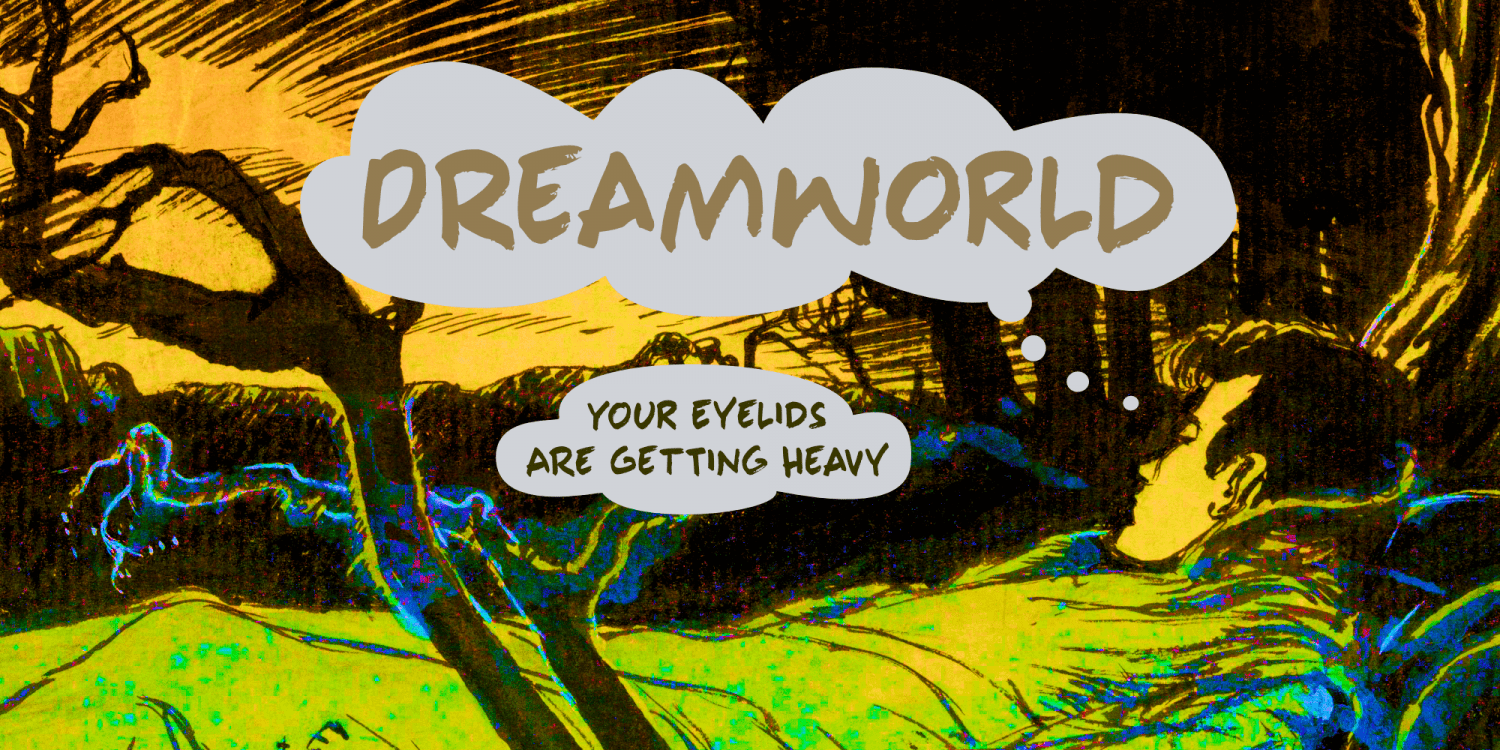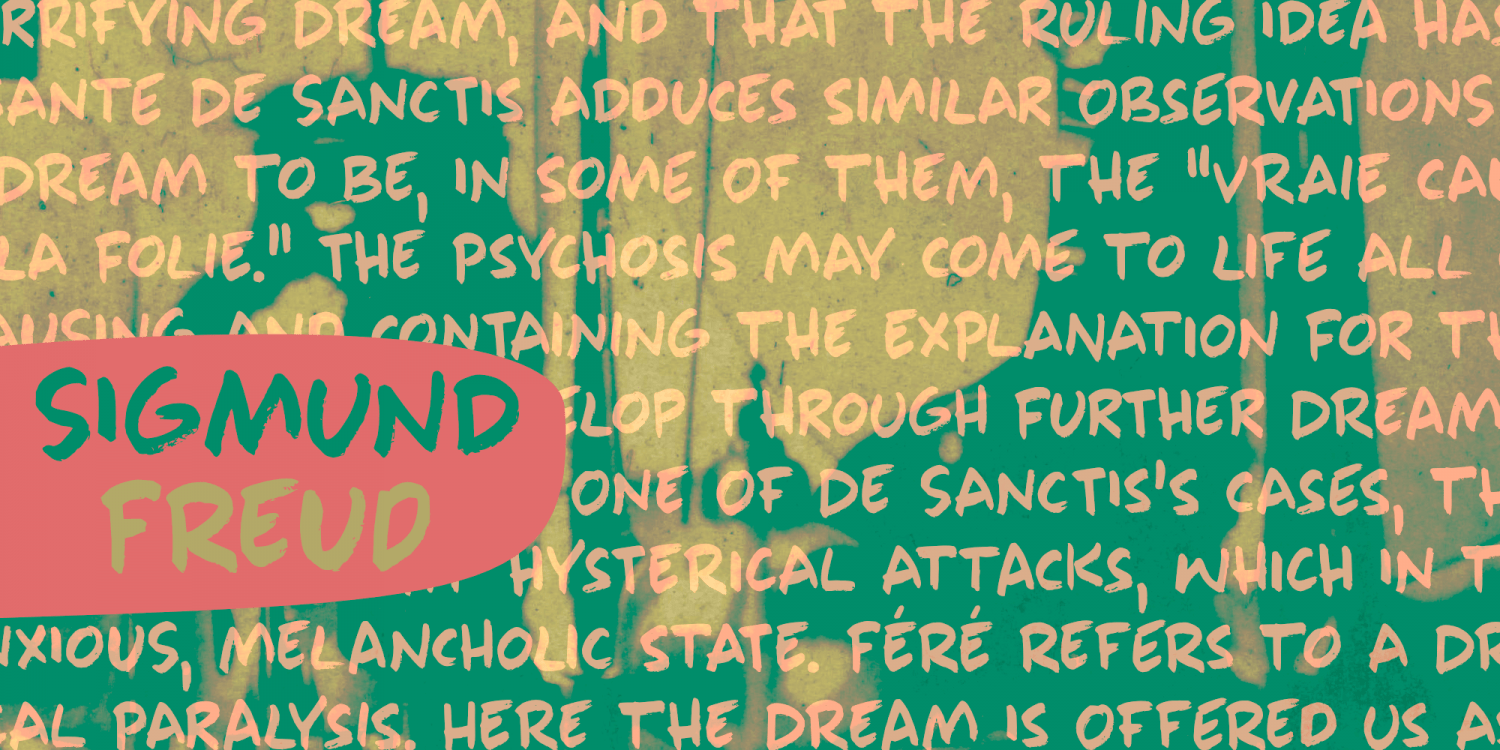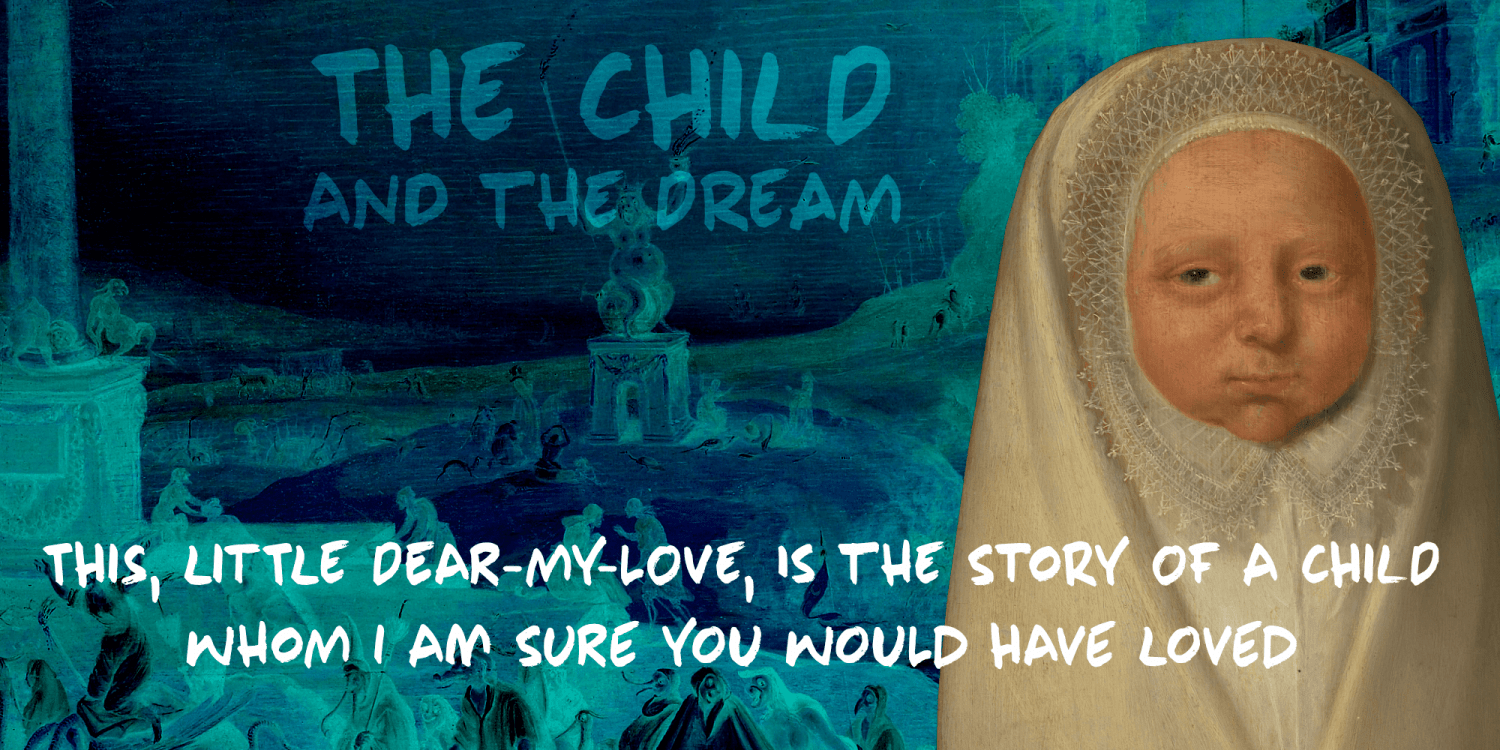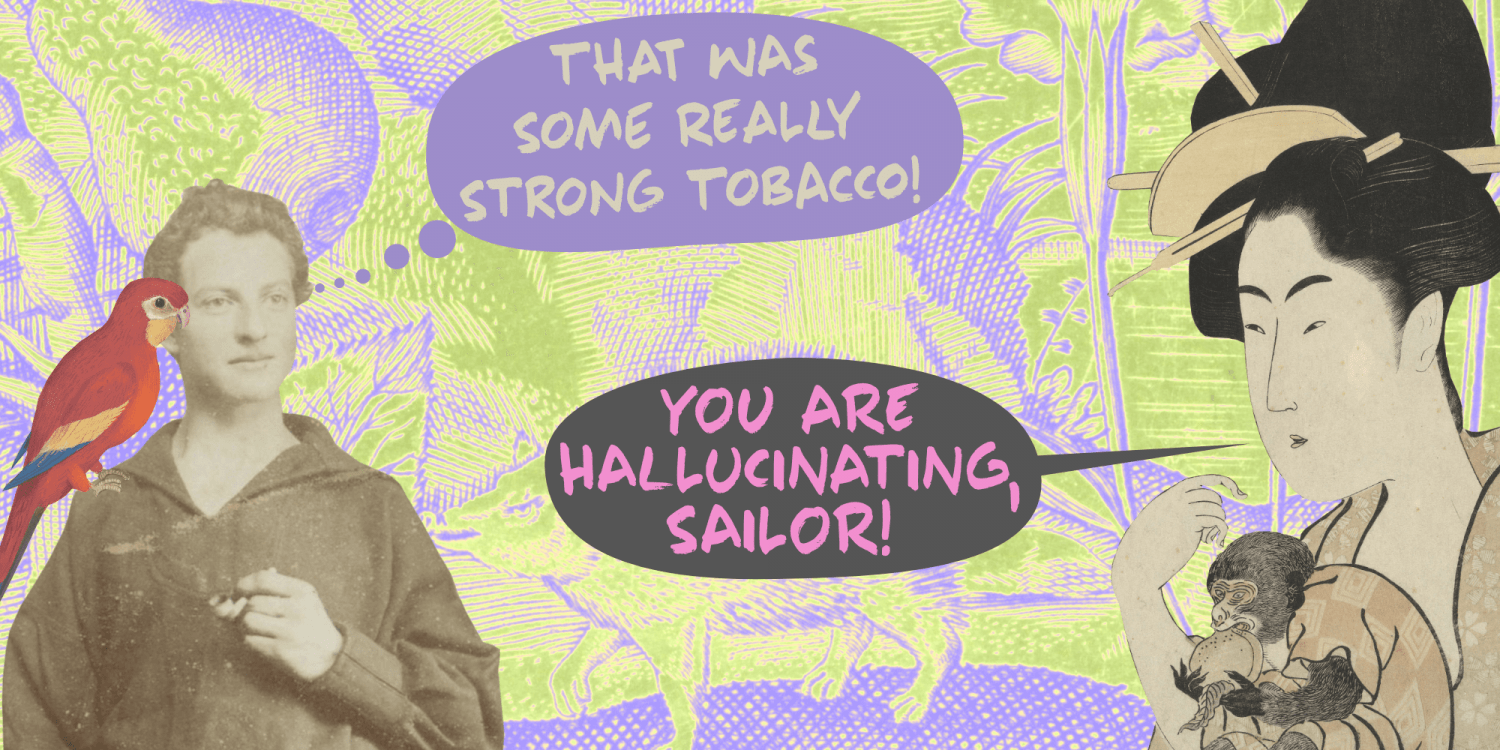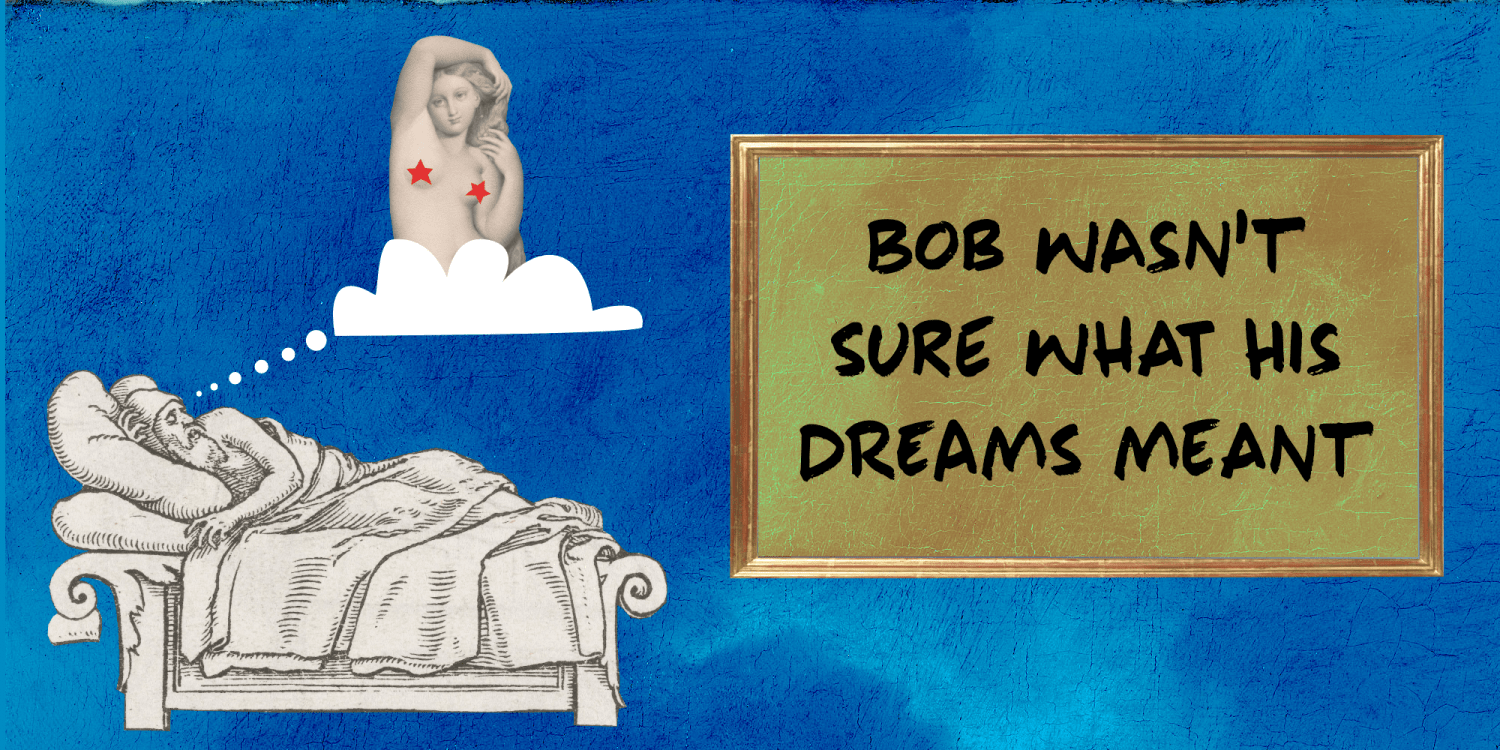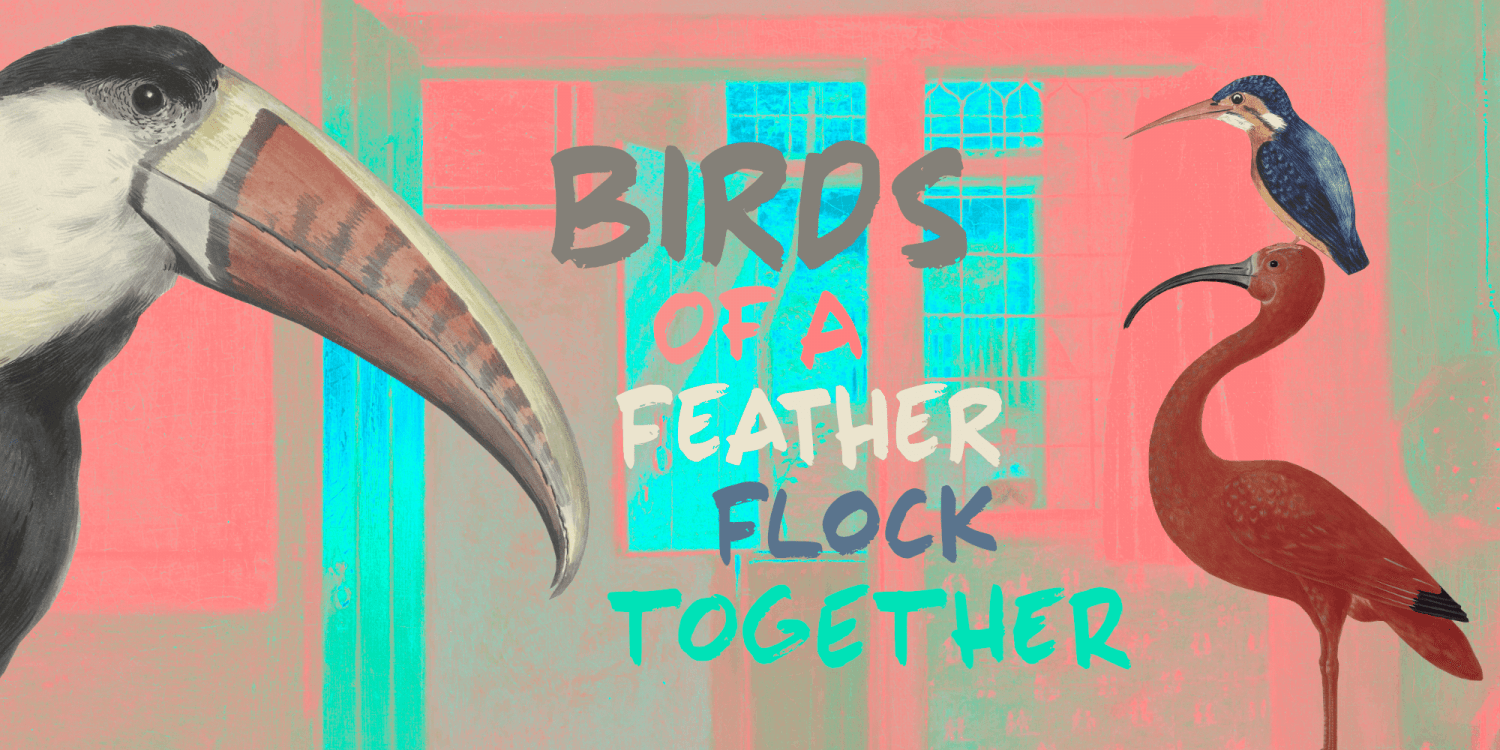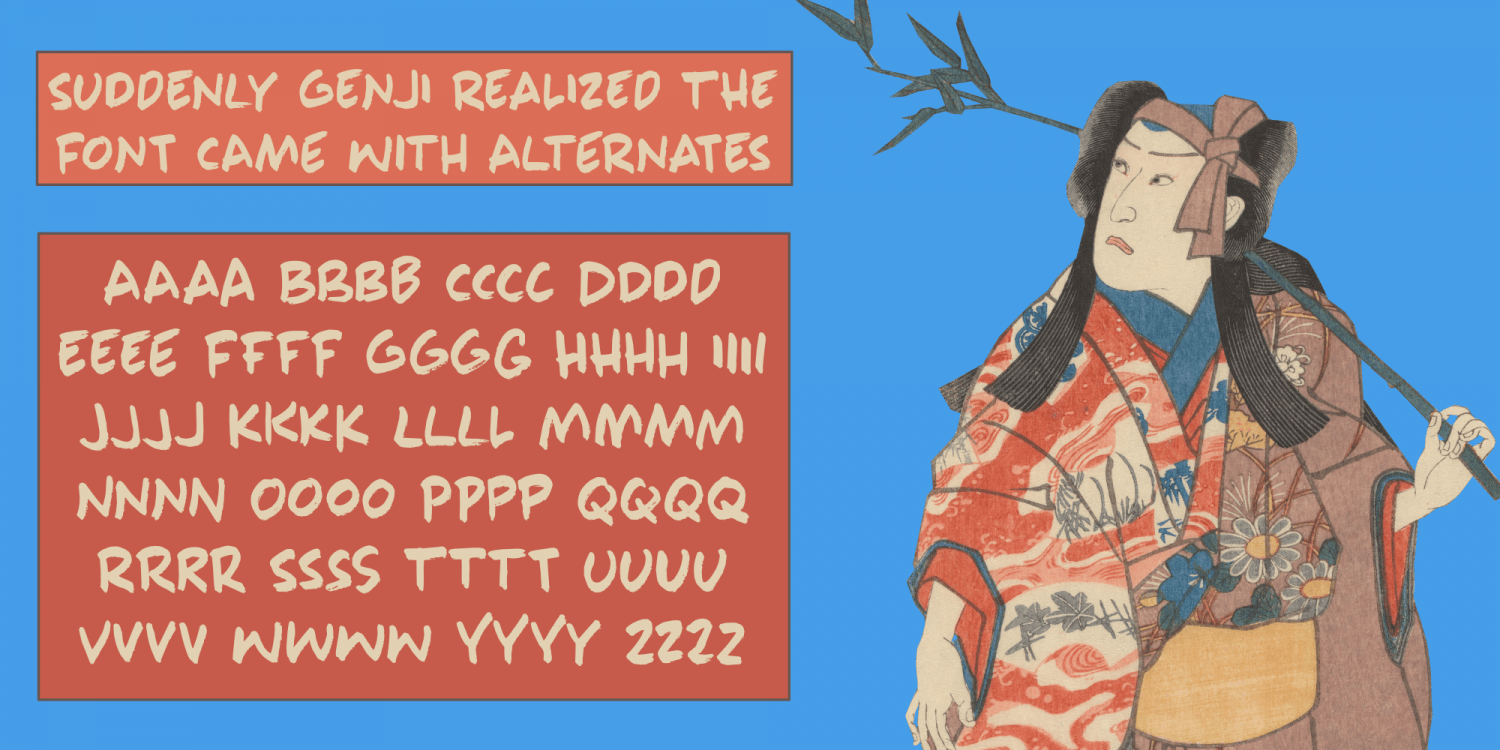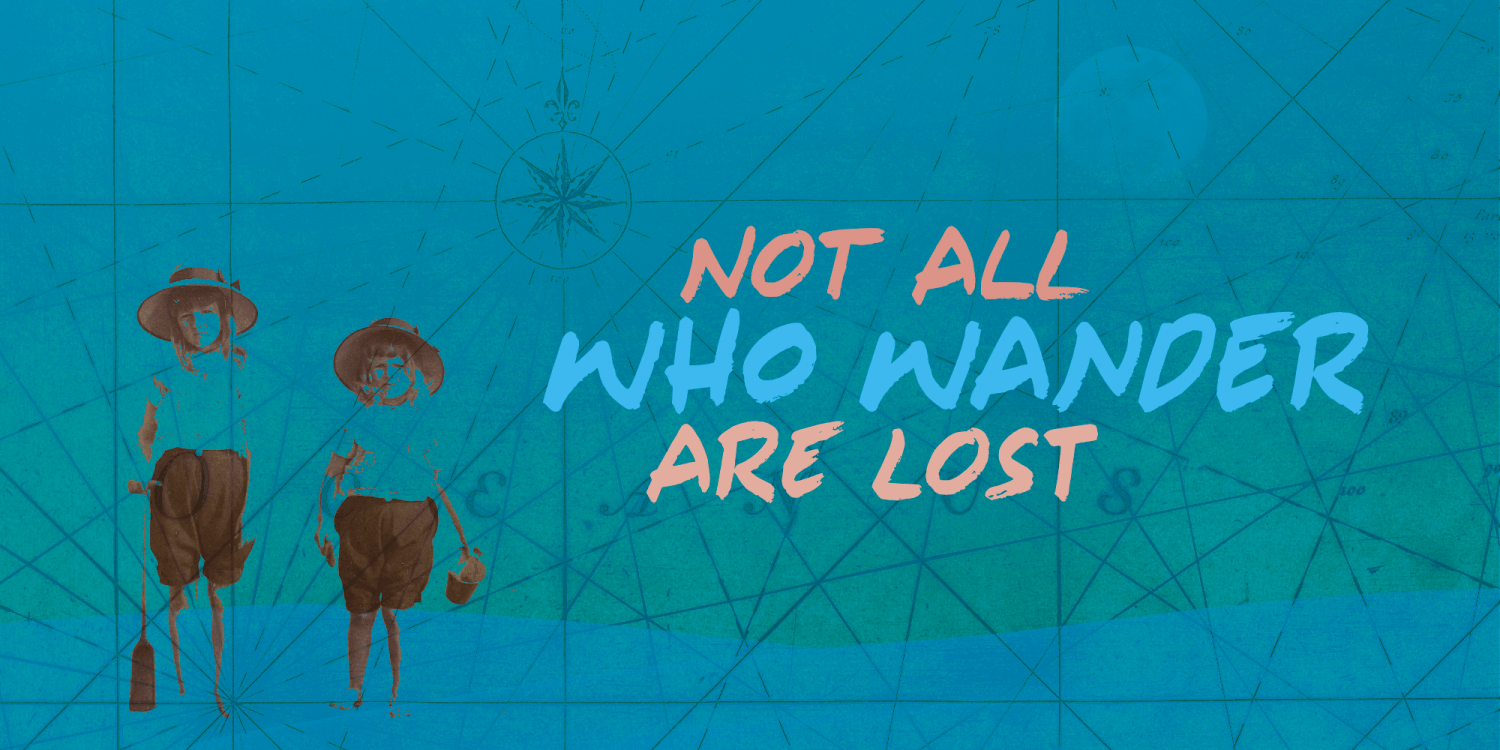
Dreamworld
The last couple of years felt like I was living in a bad dream: I witnessed crazy leaders, climate change and now Covid. I usually name my fonts after things that affect me and this one is not different.
Dreamworld is a font I made with a cheap marker pen I liberated from my kids? pencil box (I will put it back, pinky promise?). It is a bit rough, but also very easy to read and distinctive enough to make your work stand out.
Of course it comes with extensive language support (let me mention Vietnamese again?) and two sets of alternate glyphs, that cycle as you type.